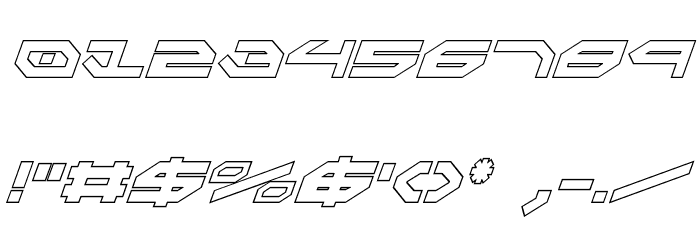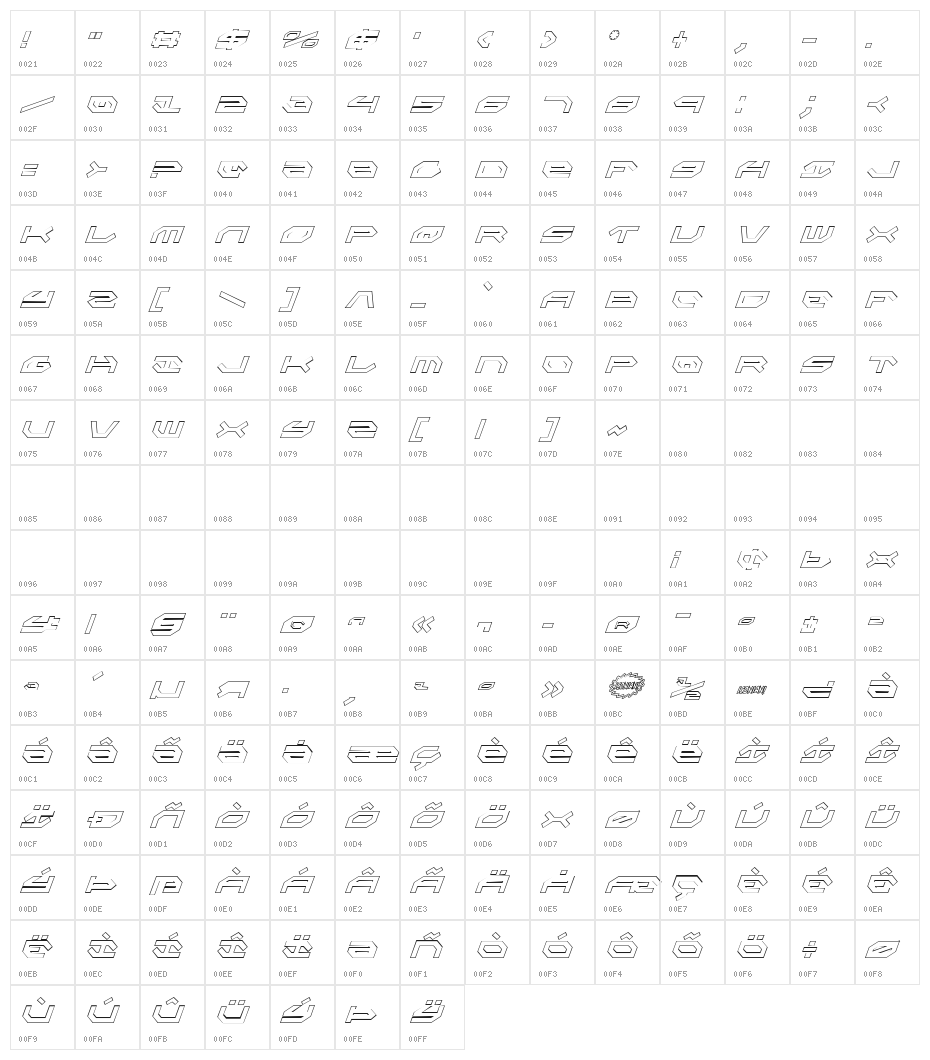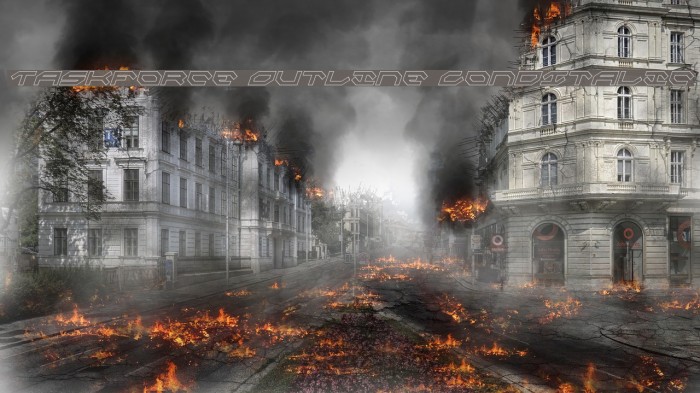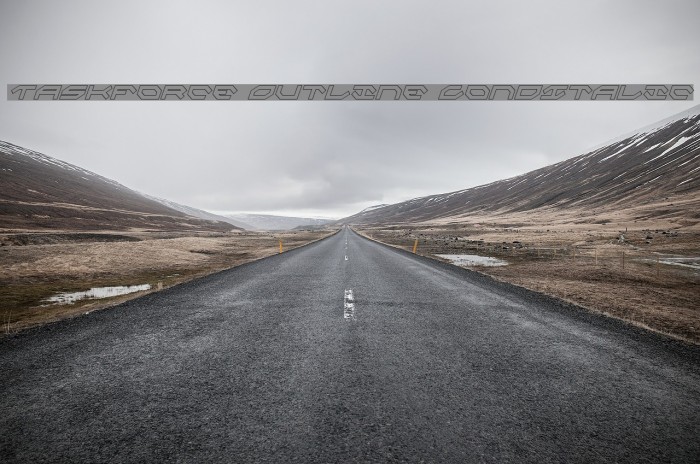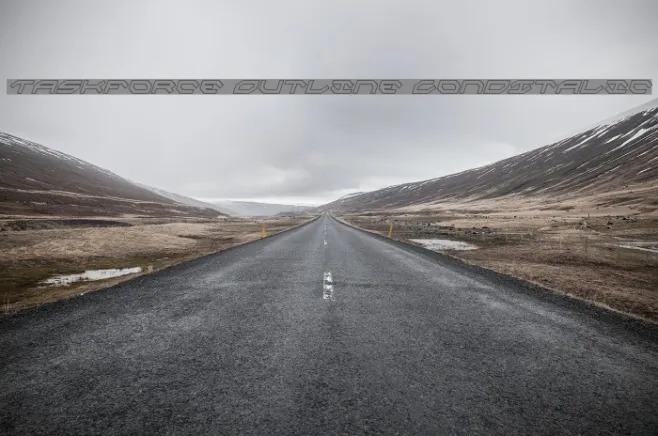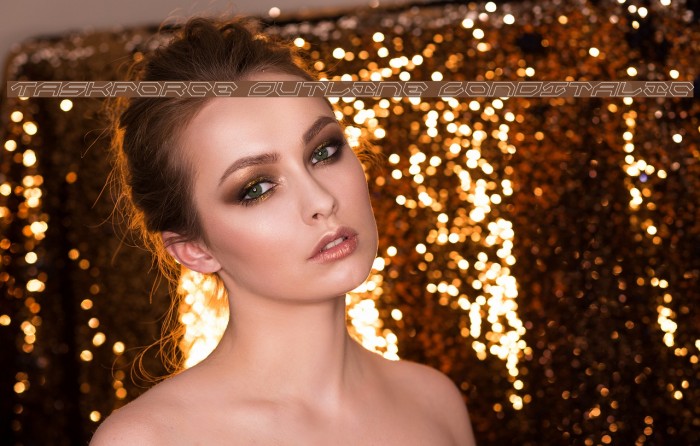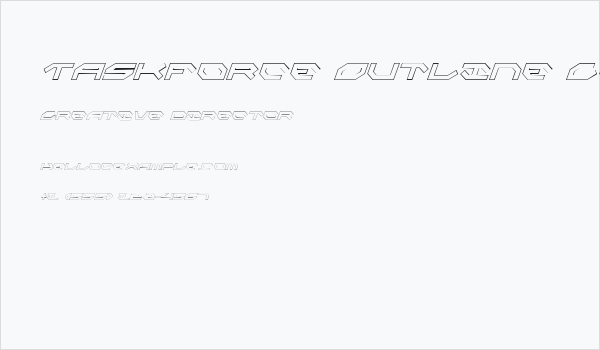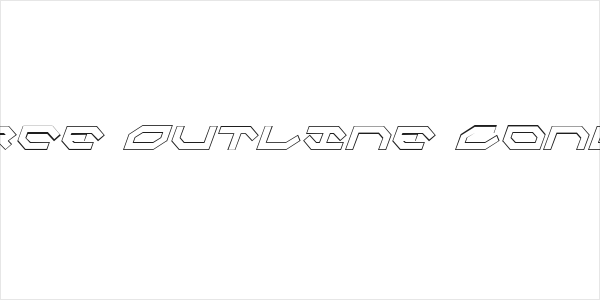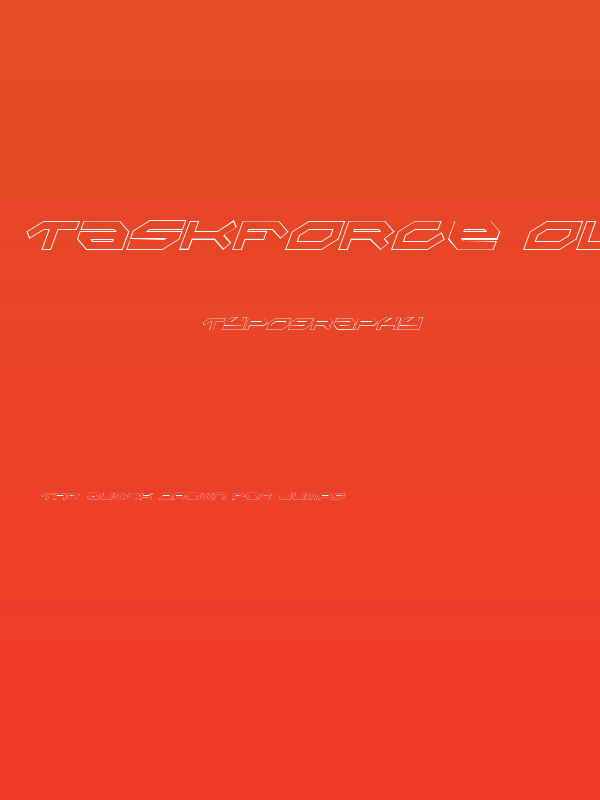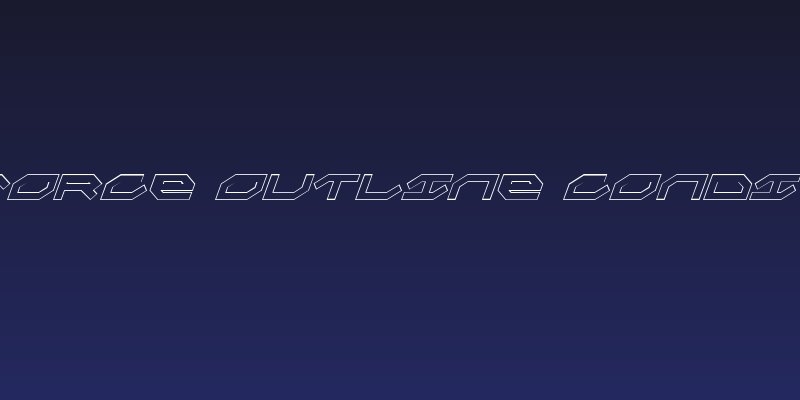
Taskforce Outline CondItalic Font
Taskforce Outline CondItalic Description
This font features a futuristic and geometric design with an outline style that gives it a distinct, modern appearance. The characters are italicized, adding a dynamic and forward-leaning aspect to the text. The angular shapes and sharp edges contribute to a tech-inspired aesthetic, making it suitable for projects that require a contemporary and edgy look. The uppercase and lowercase letters maintain a consistent style, with numbers and special characters designed to match the overall theme. The outline nature of the font allows for creative use of background colors and textures, enhancing its visual impact.
| Proposed Projects | Ideal for technology branding, sci-fi themed designs, video game titles, and modern advertising campaigns. |